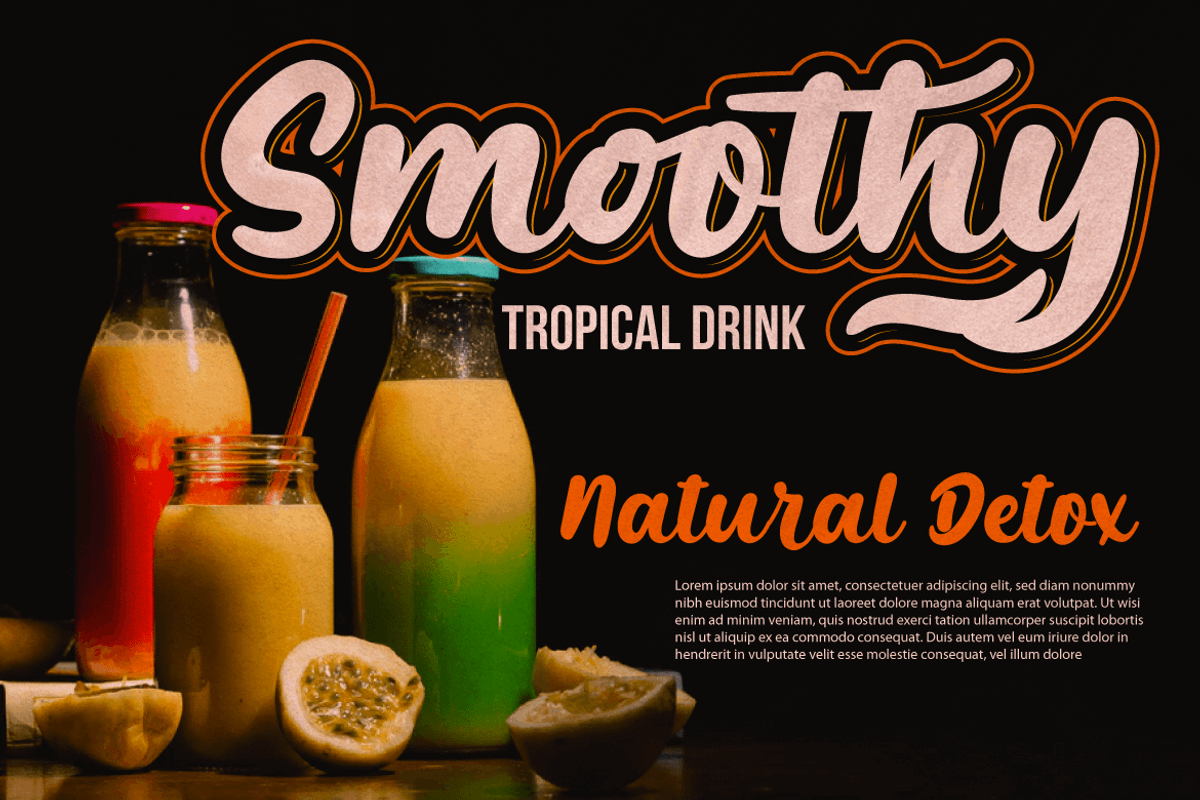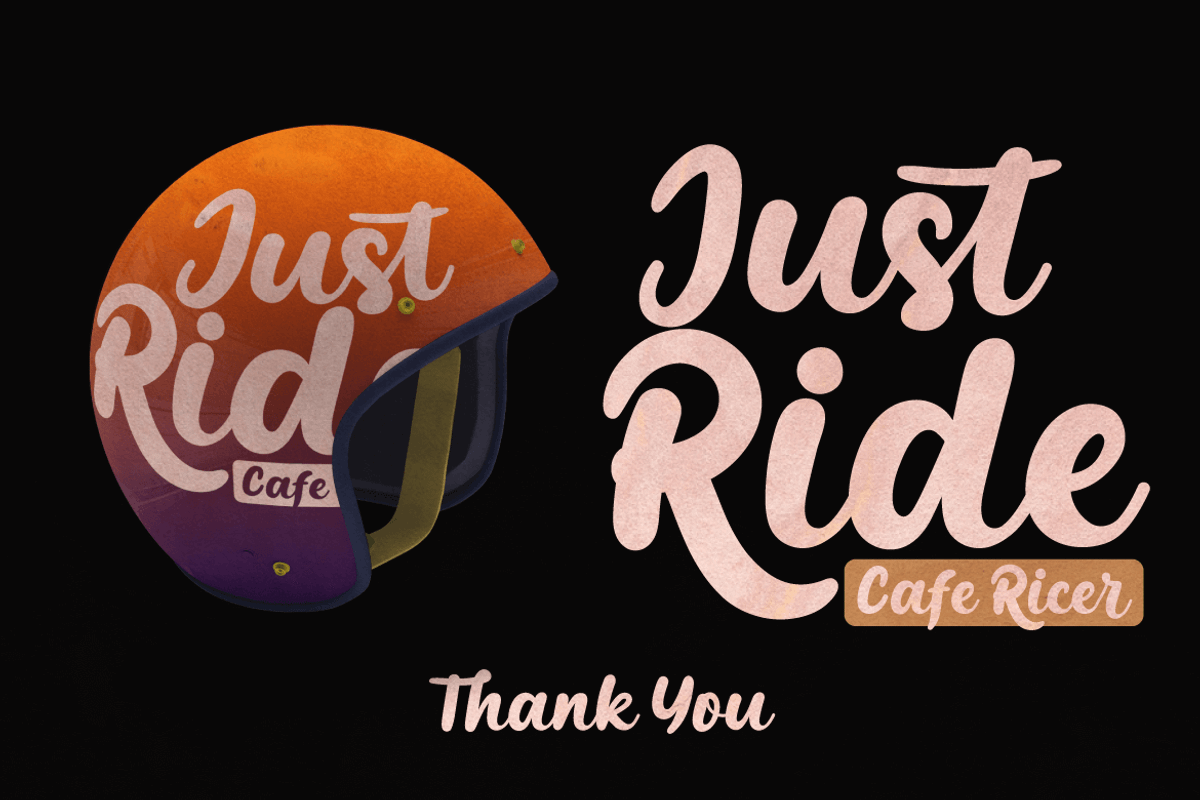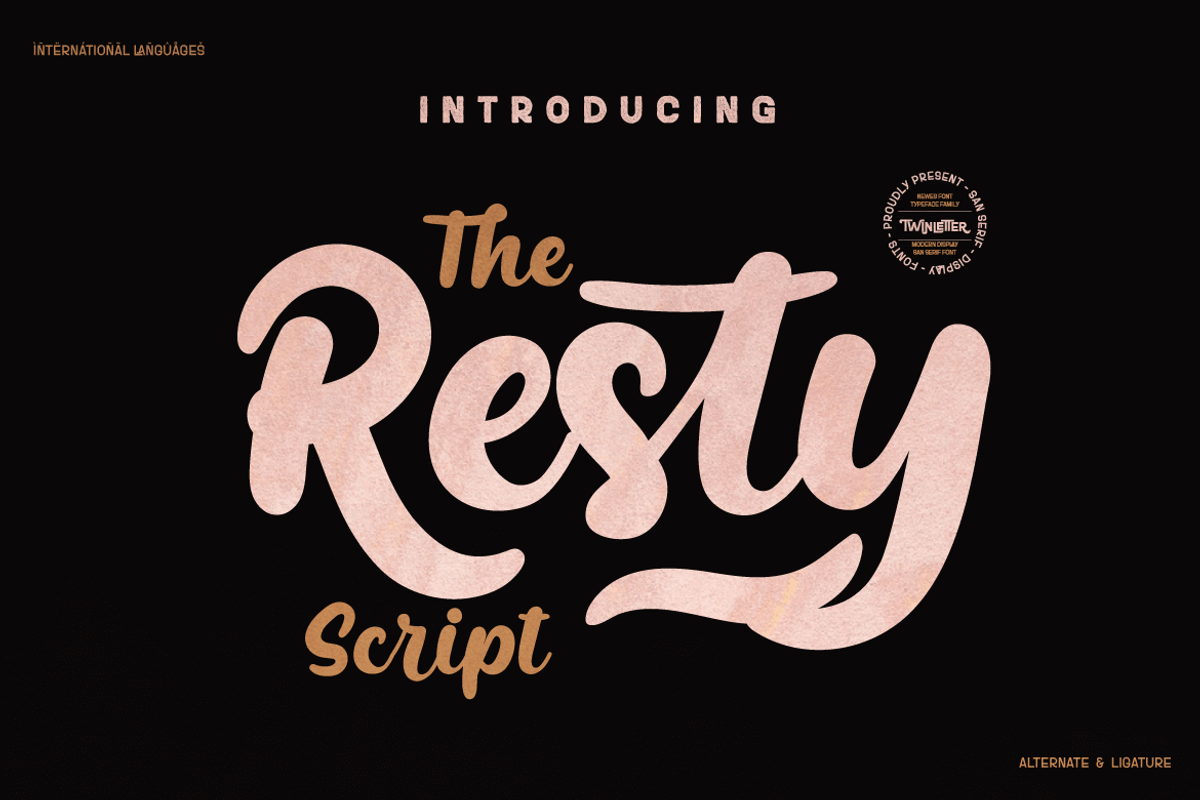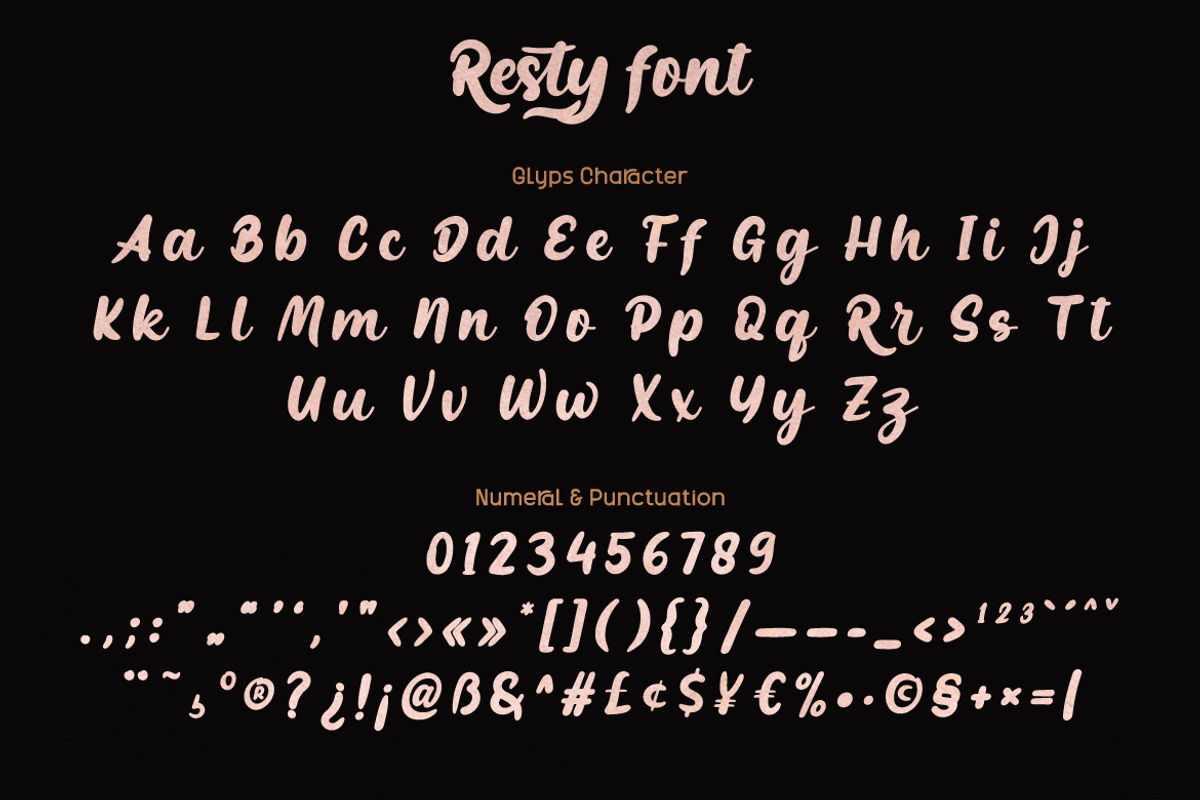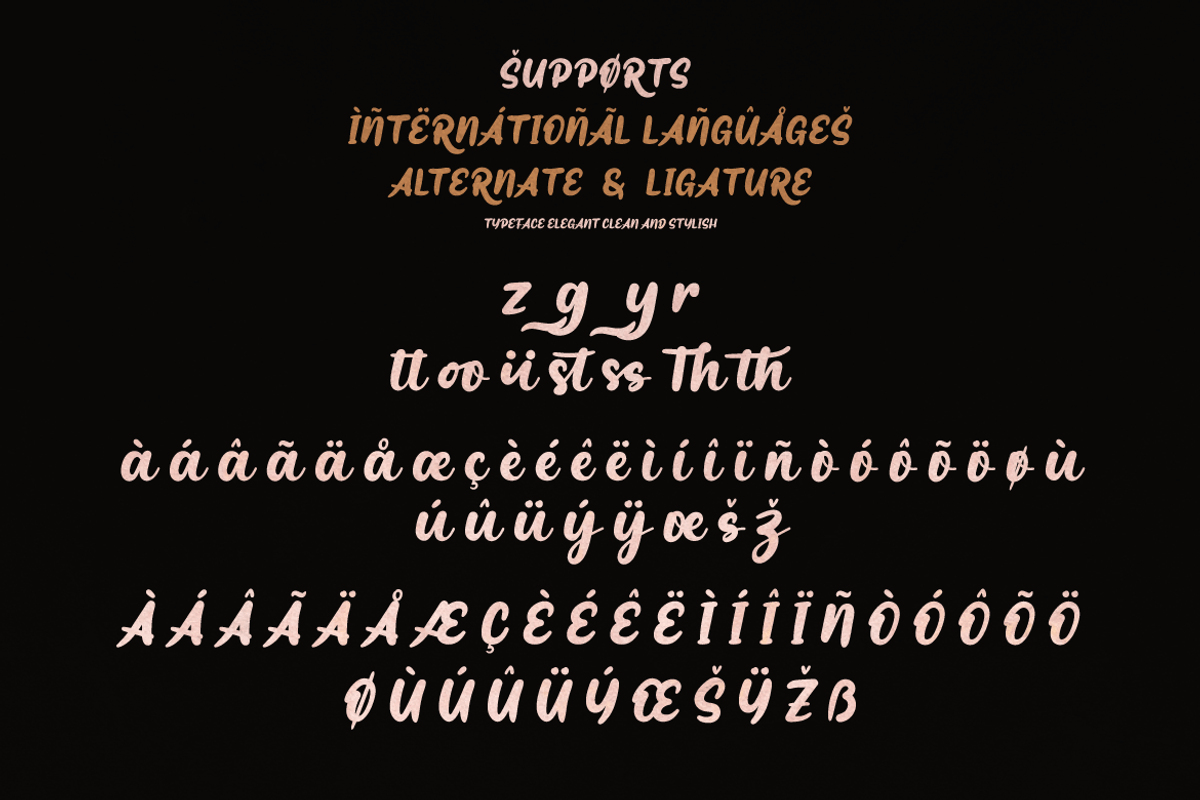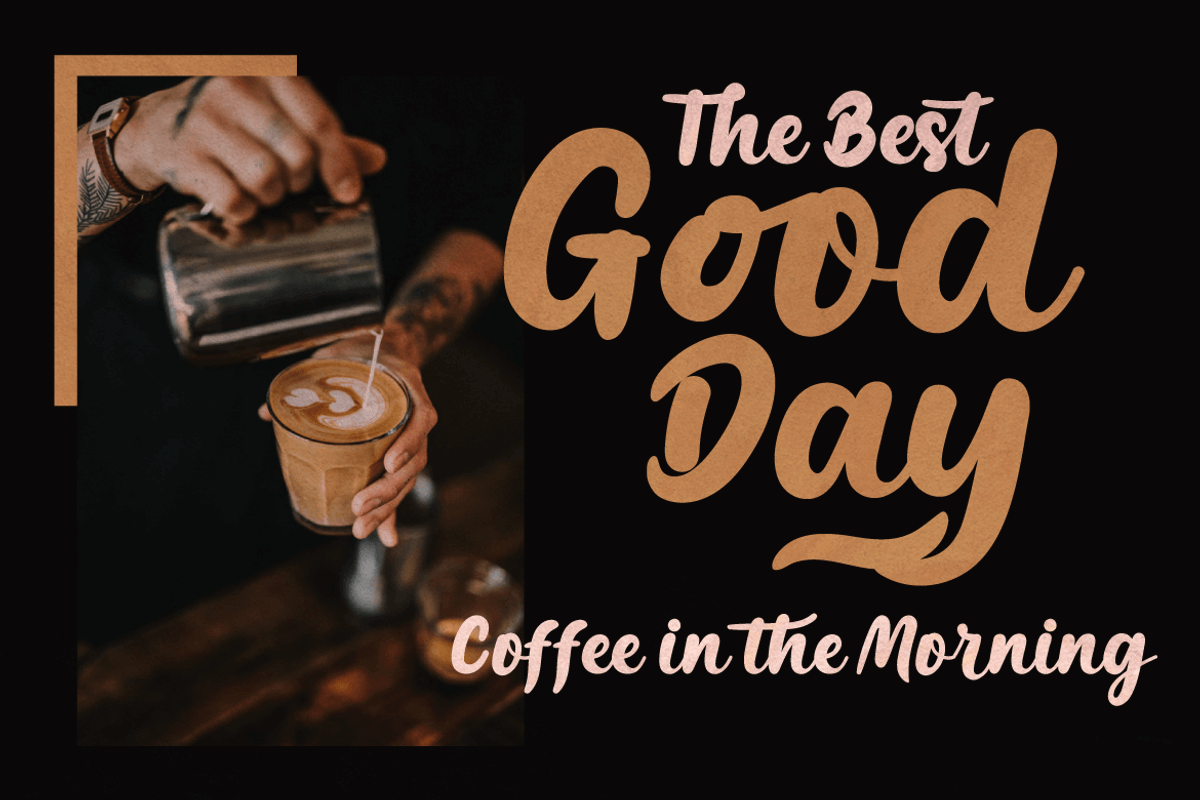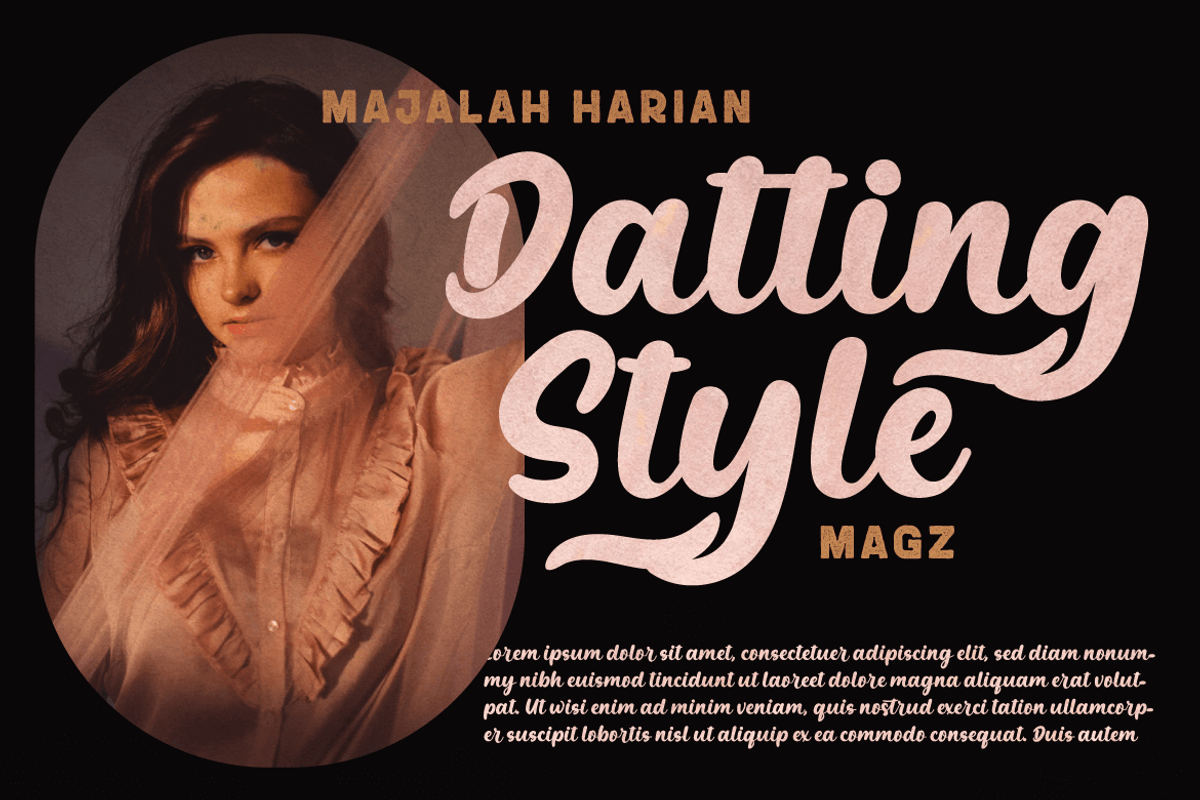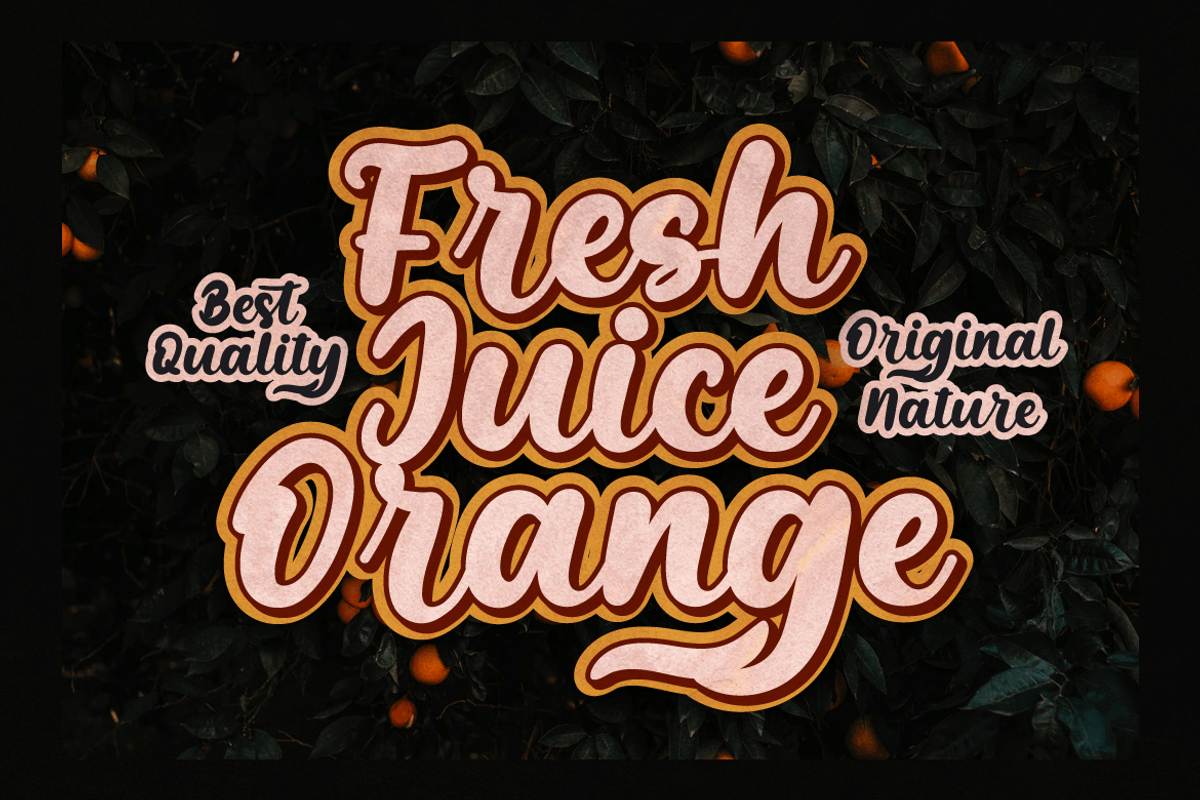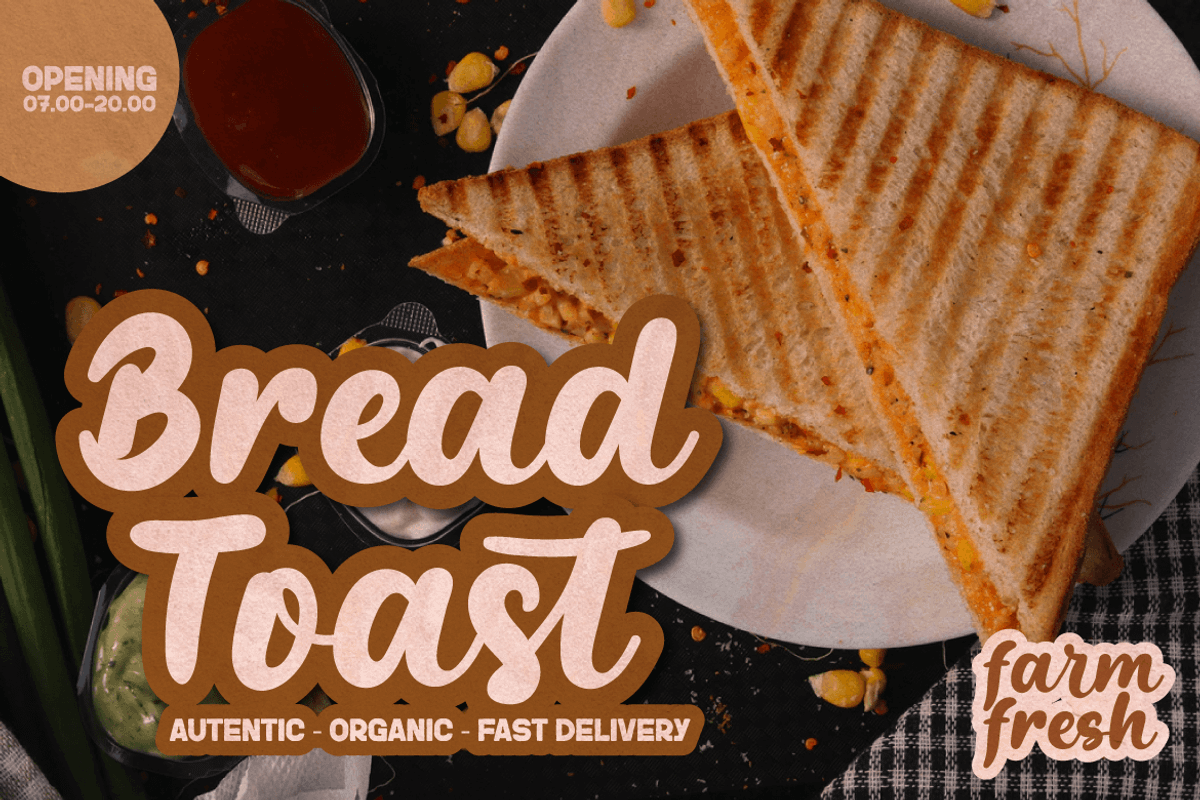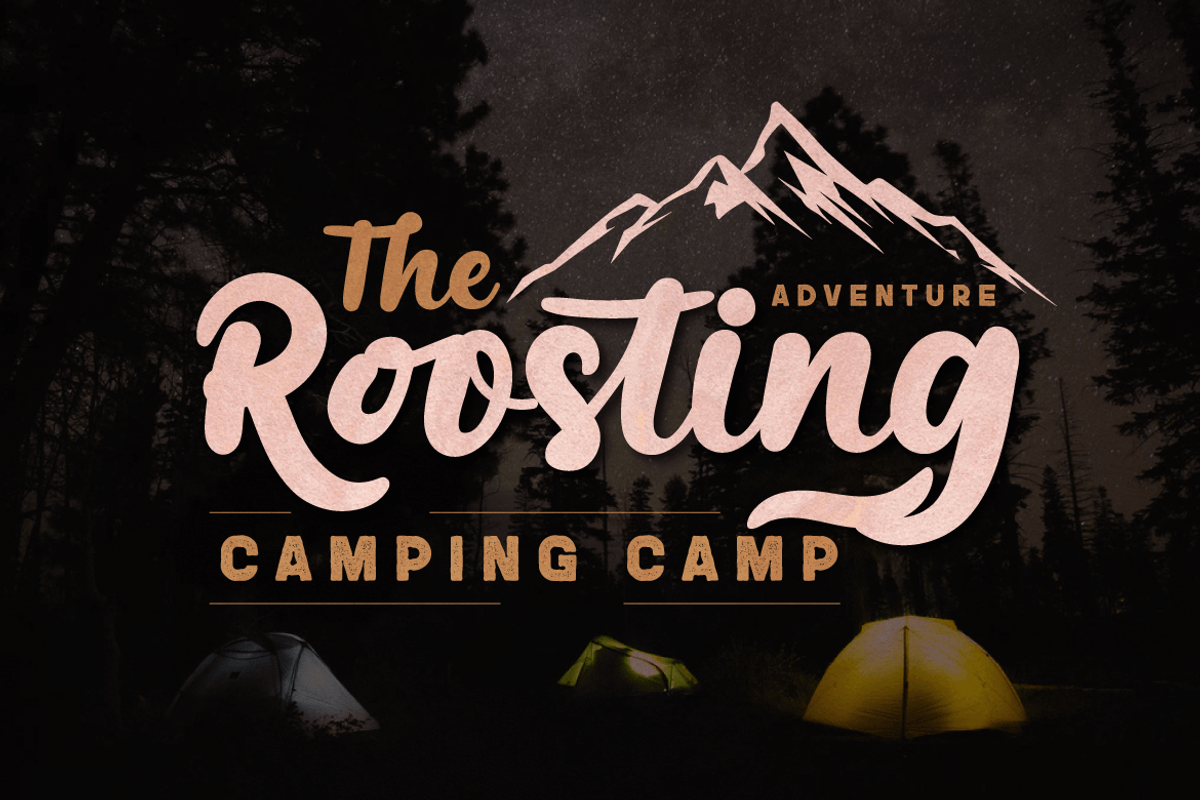
Resty Script
Resty is a bold script font that is characterized, unique and bold.
This font is designed with a natural touch of handwriting refined to create portions and compositions that suit your needs. Of course, this font designed with natural hand touch has alternative features, ligatures and also supports multi-language, So this font is suitable for crafts, logotypes, posters, titles, banners, wedding invitations, product packaging logos, quotes, social media page covers, book covers, and more.